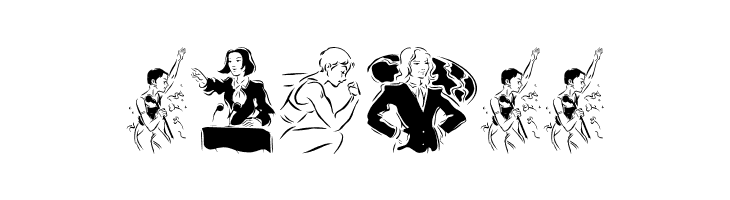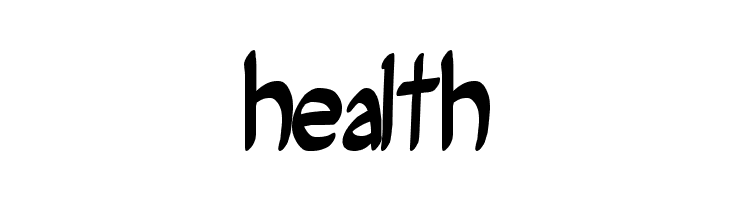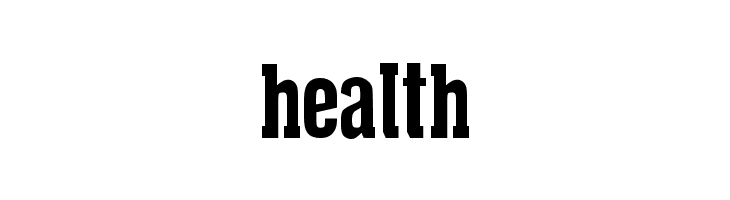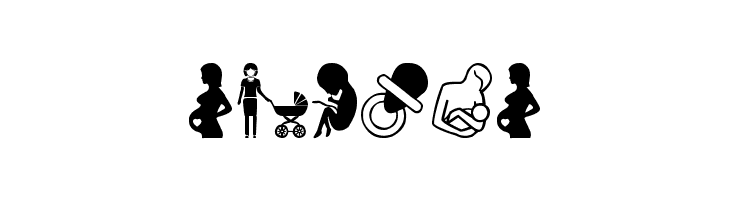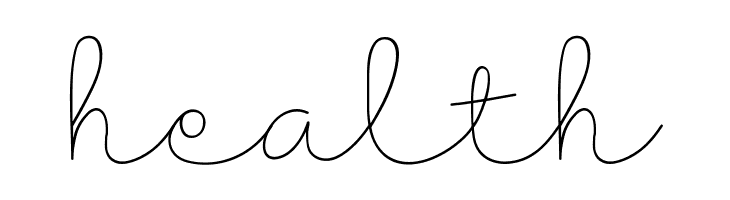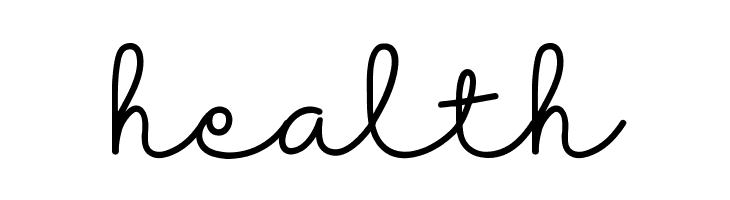
A bold, playful handwritten font with thick, rounded strokes.
A playful and elegant handwritten font with fluid, dynamic strokes.
Illustrative display font featuring superhero women in action poses.
A bold, expressive script font with a fluid, handwritten style.
A bold, pictographic icon set themed around pregnancy and maternity.
A bold, condensed font with a modern and impactful style.
A bold, slab serif font with a strong, modern presence.
A delicate, flowing script font with elegant, thin strokes.
A playful, handwritten script font with a smooth, cursive flow.